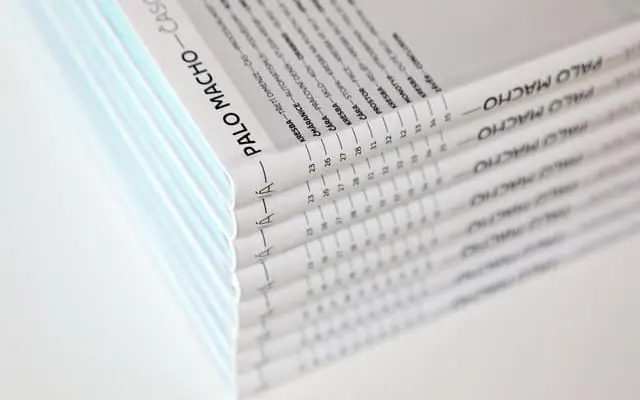
Delvard Sans specimen from Typotheque
A humanist sans-serif from Typotheque offered in five weights with italics, a condensed subfamily and a variable font edition.
Available in Light through Bold with matching italics, Delvard Sans extends into a condensed cut for tighter measures and is also offered as a variable font. The range of named styles covers most editorial and interface needs, and the Latin character set appears broad enough for Central European use. The system follows a straightforward structure without any optical size variants.
Delvard Sans presents as a humanist sans-serif with a condensed variant and variable axis, typical of text-oriented sans families from European type studios. The naming conventions and style range suggest a text-focused humanist design rather than a geometric or grotesque approach.